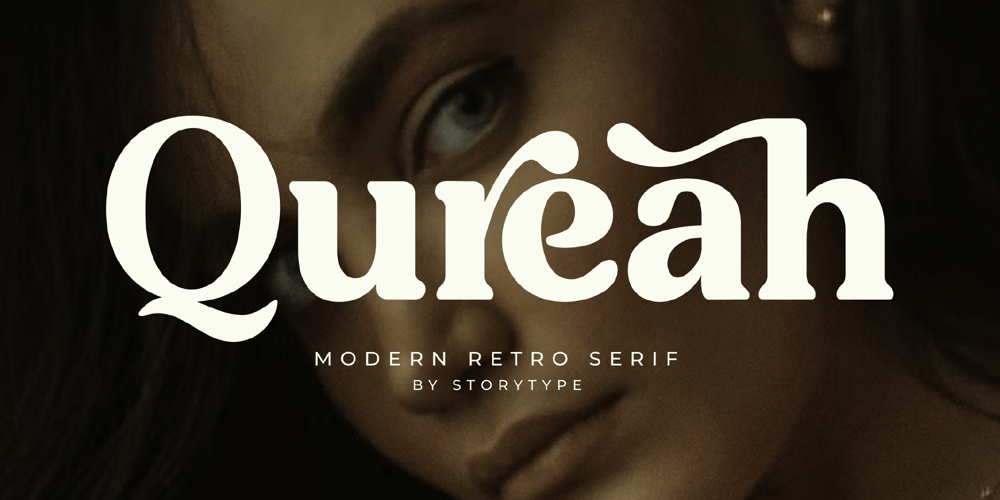
Qureah Font Family was designed by Heru Utama Putra and published by Letterena Studios. Qureah contains 2 styles and family package options. Qureah is a stylish and elegant serif font. Due to its classy and fashionable character, this font is suitable for a wide range of chic designs.Qureah is PUA encoded which means you can access all of the amazing glyphs and ligatures with ease!